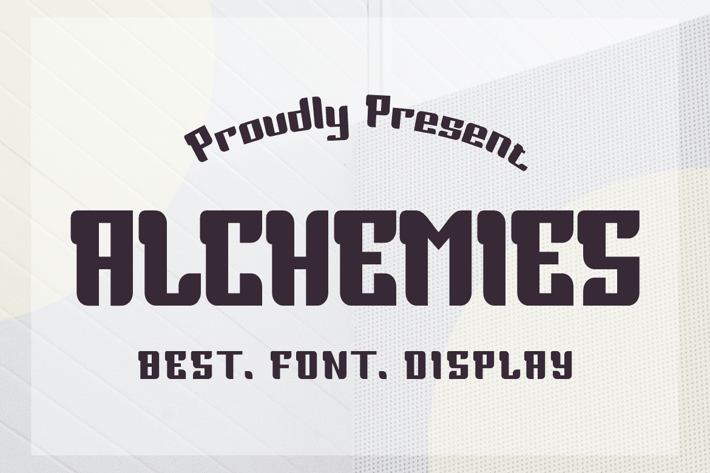
ALCHEMIES Font
Introducing our new product ALCHEMIES Font - Modern Font
ALCHEMIES Font - Modern Font is a bold and authentic display font. The font is suitable for any branding project like logo, t-shirt printing, esport, and many more. outstanding in a wide range of contexts.